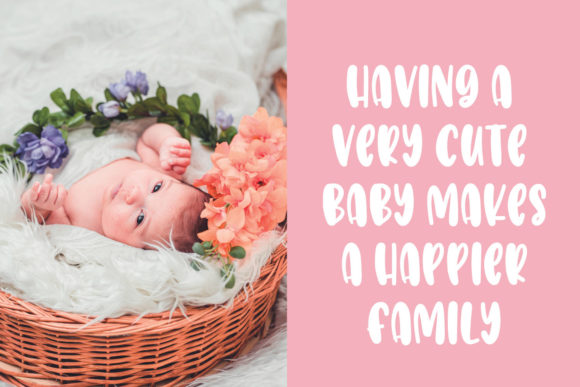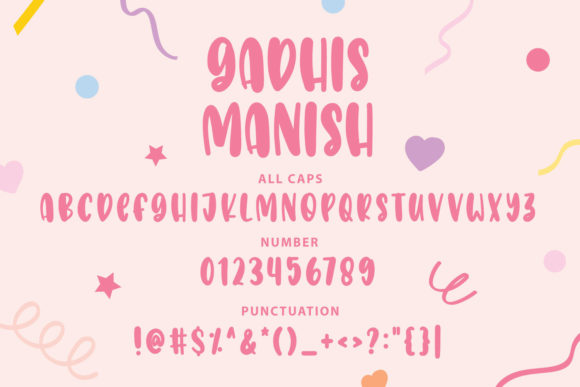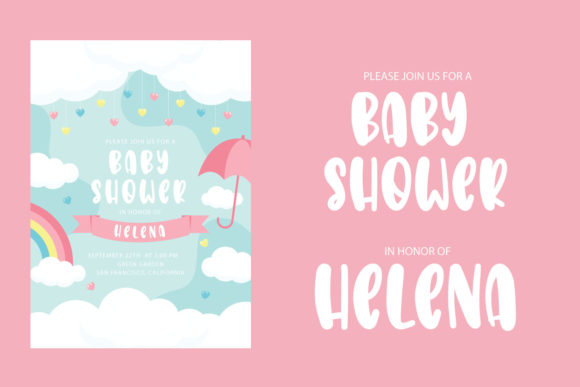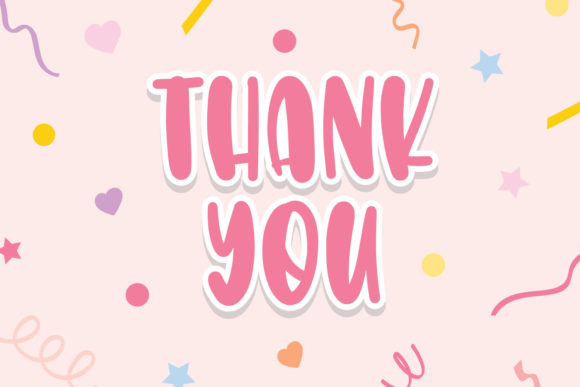
Gadhis Manish Font: The Perfect Choice for Creative Projects
Are you looking for a font that can add a touch of friendliness and approachability to your designs? Look no further than Gadhis Manish Font! This cute and casual display font is perfect for a wide range of creative projects, from logos and branding to social media posts and DIY crafts.
What is Gadhis Manish Font?
Gadhis Manish Font is a display font that boasts an incredible friendly feel. Its unique design makes it stand out from other fonts, and its versatility ensures that it can be used in a variety of contexts. Whether you’re a designer, crafter, or simply someone who loves to create, Gadhis Manish Font is an excellent choice.
Characteristics of Gadhis Manish Font
So, what makes Gadhis Manish Font so special? Here are just a few of its key characteristics:
- Cute and Casual: Gadhis Manish Font has a playful, informal feel that’s perfect for designs that need to be approachable and friendly.
- Display Font: This font is designed to make a statement, making it ideal for headings, titles, and other display text.
- Flexible: Gadhis Manish Font can be used in a wide range of creative projects, from logos and branding to social media posts and DIY crafts.
- Unique: With its distinctive design, Gadhis Manish Font is sure to make your creations stand out from the crowd.
Uses for Gadhis Manish Font
So, what can you use Gadhis Manish Font for? The possibilities are endless! Here are just a few ideas to get you started:
- Logos and Branding: Gadhis Manish Font is perfect for creating logos and branding materials that need to be friendly and approachable.
- Social Media Posts: Add a touch of personality to your social media posts with Gadhis Manish Font.
- Invitations: Create beautiful, eye-catching invitations for parties, events, and more.
- Quotes: Use Gadhis Manish Font to add a touch of inspiration to your quotes and motivational messages.
- Stationery: Create custom stationery, including greeting cards, thank-you cards, and more.
- DIY Crafts: Gadhis Manish Font is perfect for a wide range of DIY crafts, from scrapbooking to crafting.
Why Choose Gadhis Manish Font?
So, why should you choose Gadhis Manish Font for your creative projects? Here are just a few reasons:
- Unique Design: Gadhis Manish Font has a distinctive design that’s sure to make your creations stand out.
- Flexibility: This font can be used in a wide range of creative projects, making it a great addition to your font library.
- Friendliness: Gadhis Manish Font has a friendly, approachable feel that’s perfect for designs that need to connect with audiences.
In conclusion, Gadhis Manish Font is a versatile and unique display font that’s perfect for a wide range of creative projects. Its friendly, approachable feel makes it an excellent choice for designs that need to connect with audiences, and its flexibility ensures that it can be used in a variety of contexts. Whether you’re a designer, crafter, or simply someone who loves to create, Gadhis Manish Font is an excellent addition to your font library.
Get Creative with Gadhis Manish Font!